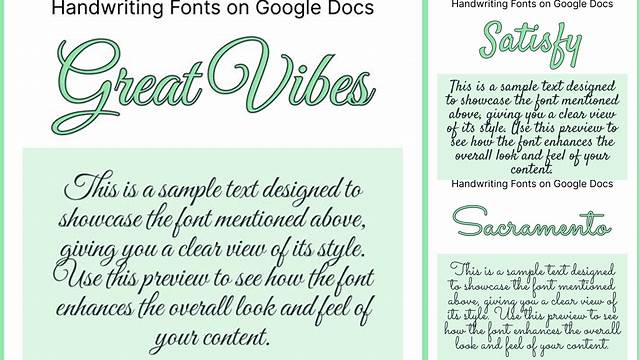
Best Handwriting Fonts For Google Docs
Hey guys! If you're anything like me, you're always on the lookout for ways to make your documents pop. Whether it's for a personal project, a school assignment, or even just a fun note to a friend, the right font can make all the difference. And what's better than a font that looks like real handwriting? It adds a personal touch and a unique flair that can't be matched by standard, run-of-the-mill fonts. That's why we're diving headfirst into the best handwriting fonts for Google Docs. We'll explore a variety of options, from the elegant and sophisticated to the fun and quirky, so you can find the perfect match for your needs. Get ready to transform your Google Docs into something truly special!
Why Choose Handwriting Fonts?
So, you might be wondering, why bother with handwriting fonts in the first place? Well, let me tell you, there are a bunch of awesome reasons! First off, they bring a personal and human touch to your documents. In a world dominated by digital text, a handwriting font can make your work feel more relatable and engaging. Think about it: when you receive a handwritten letter, it feels more special, right? Handwriting fonts capture that same vibe. They're perfect for adding a sense of authenticity and warmth, which is especially great for invitations, thank-you notes, or anything where you want to create a connection with your reader. Secondly, handwriting fonts are incredibly versatile. They can be used for a wide range of purposes, from adding a creative touch to your presentations to creating a unique look for your social media posts. They're also fantastic for educational materials, making them more appealing to students of all ages. Using a handwriting font can make your document stand out from the crowd and make your message more memorable. For example, imagine using a handwriting font for a birthday invitation – it immediately feels more personal and thoughtful than a standard block font. Or think about using it on a presentation slide to emphasize a key point. It's all about making your content more engaging and enjoyable for your audience, and handwriting fonts are a fantastic way to do just that. They add a unique aesthetic appeal, setting your work apart and creating a lasting impression. Plus, let's be honest, they're just plain fun to use! You can experiment with different styles and find the one that best suits your personality and the tone of your project. This can be a great way to add your own creative spin to your work and make it feel more you. It's all about finding the right font to convey your message in the best possible way, and handwriting fonts offer an array of options to help you achieve just that.
The Benefits of Using Handwriting Fonts
Handwriting fonts offer a unique charm that standard fonts can't match. They're like a breath of fresh air, injecting a personal touch into digital documents. Think about the difference between a typed note and a handwritten one; the latter feels more intimate, more authentic. This is the magic of handwriting fonts! They instantly elevate your content, making it more relatable and engaging. Here are some key advantages of using handwriting fonts in Google Docs:
- Adds a Personal Touch: It instantly makes your document feel more personal and human, creating a stronger connection with your audience. This is especially effective for invitations, thank-you notes, and informal communications where you want to convey warmth and authenticity.
- Boosts Creativity: Handwriting fonts inspire creativity. They can transform mundane documents into visually appealing pieces. They invite you to experiment, to break free from the monotony of standard fonts, and to let your personality shine through.
- Enhances Readability: When chosen carefully, handwriting fonts can actually enhance readability. They can break up the monotony of block text, making your content more visually engaging and easier to digest. This is particularly useful for educational materials, presentations, and creative projects.
- Creates a Unique Brand: Handwriting fonts can help to differentiate your brand or personal style. They can set you apart from the competition, making your content more memorable and impactful. This is a fantastic way to build a distinct brand identity.
- Versatility: From invitations and greeting cards to presentations and social media graphics, handwriting fonts are incredibly versatile. They can adapt to various purposes, adding a unique flair wherever they're used. This versatility allows you to explore different styles and find the perfect fit for any project.
Top Handwriting Fonts for Google Docs
Alright, let's get down to the good stuff! Here's a list of some of the best handwriting fonts you can find in Google Docs. I've tried to include a variety of styles to cater to different tastes and project needs. Each font brings its unique character, and hopefully, you'll find some new favorites!
1. Homemade Apple
This is a super cute and friendly font. It's perfect for a casual, playful vibe. Think about using it for kids' projects, informal notes, or anything where you want to convey a sense of approachability and warmth. The letters have a slightly rounded shape, making them easy to read and visually appealing. It's a solid choice if you're looking for a handwriting font that's not too fancy but still has plenty of personality.
2. Caveat
Caveat is a more refined handwriting font. It has a touch of elegance and sophistication, making it a great choice for invitations, cards, or any project where you want to add a touch of class. While still maintaining a handwritten feel, it's more polished than some of the other fonts on this list. The letters are well-defined and easy to read, making it suitable for longer texts. Its versatility is a definite plus!
3. Permanent Marker
As the name suggests, this font mimics the look of a permanent marker. It's bold, edgy, and perfect for making a statement. Use it for headlines, emphasis, or anything where you want to grab attention. It's a bit rough around the edges, giving it a cool, urban feel. If you're looking for a font that's unique and stands out, Permanent Marker is a great option.
4. Architects Daughter
This is a clean and stylish font that emulates the style of architectural lettering. It's versatile and works well in a variety of contexts. It's a great choice for both headings and body text, as it's easy to read and has a distinct look. The letters are crisp and well-defined, giving your document a professional yet personal touch. Its adaptability makes it a fantastic go-to font for any project, adding both flair and clarity.
Conclusion: Elevate Your Documents with Handwriting Fonts!
So there you have it, guys! Handwriting fonts are a fantastic way to spice up your Google Docs and add a personal touch to your projects. From playful and quirky to elegant and sophisticated, there's a handwriting font out there for everyone. By following the tips and exploring the fonts mentioned above, you can transform your documents into something truly unique and engaging. So go ahead, experiment, and have fun! Don't be afraid to try out different fonts and styles until you find the perfect match for your needs. Happy designing!